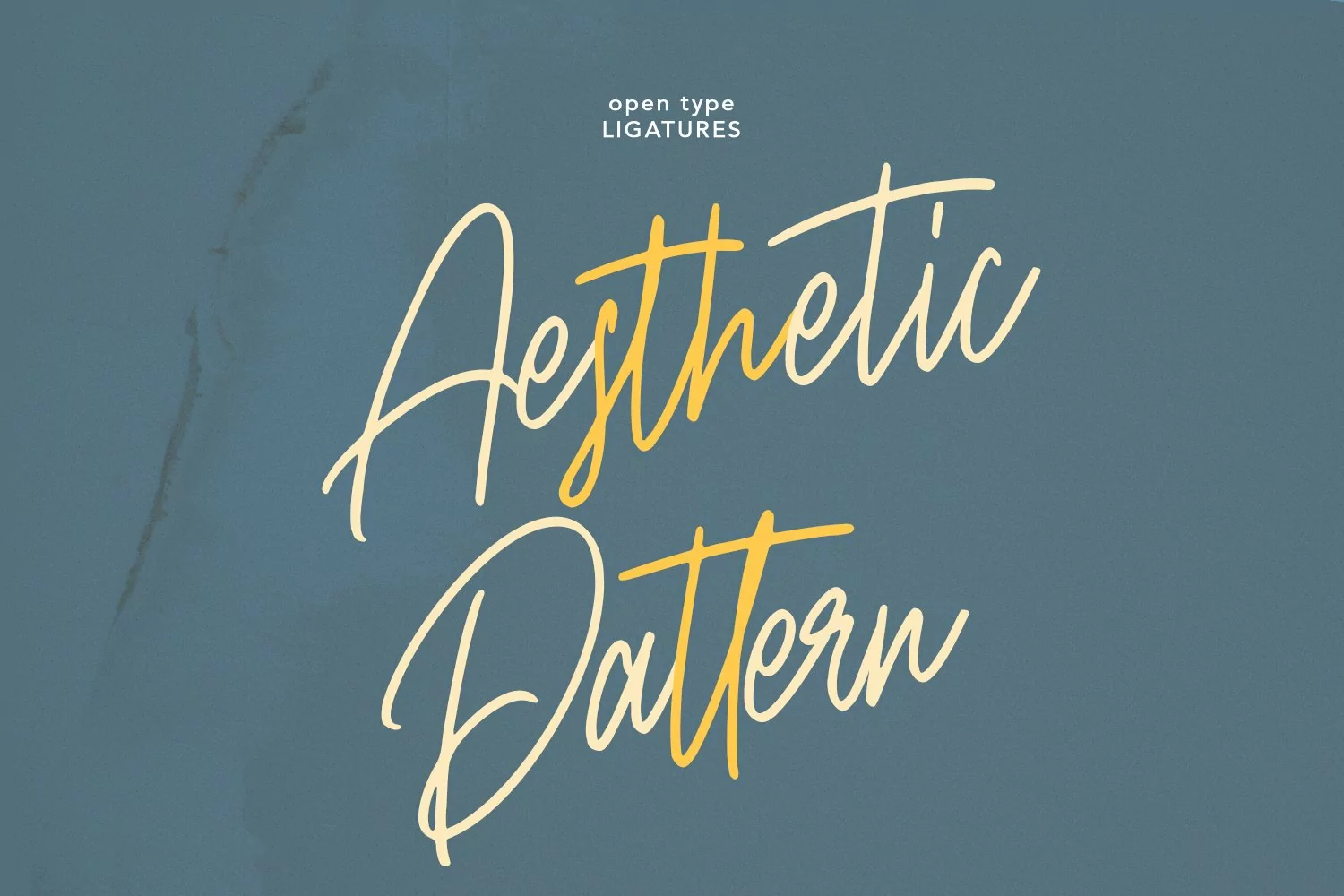
Bellmounts is a handwritten script font, with a rough stroke like a stamp effects, slanted and fun characters. It has Opentype features of ligatures, makes it a perfect choice for branding and digital designs. Use this font for logos, social media, websites, blogs, instagram, social media, business cards, branding, and more! Bellmounts font support multilingual more than 100+ language. and good pair for your secondary text font with sans or serif. Make a stunning work with Bellmounts rough stroke script font.